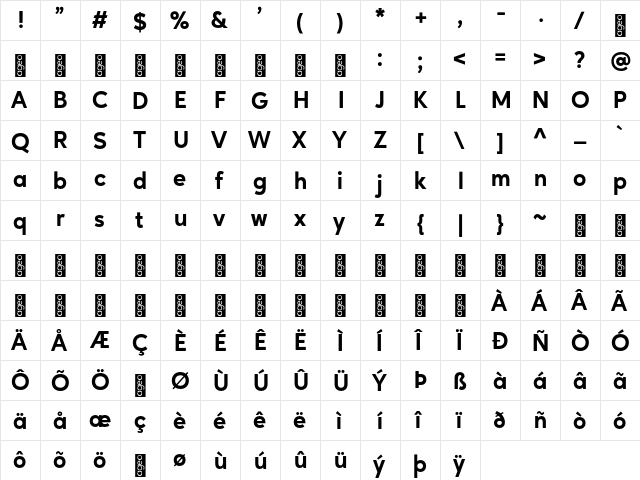
Ageo Personal Use ExtBd Regular
| Designer | Eko Bimantara |
Design Context for Ageo Personal Use ExtBd Typeface
Ageo Personal Use ExtBd takes a measured approach to typography — its balanced proportions and neutral character make it a reliable workhorse for both digital and print work.